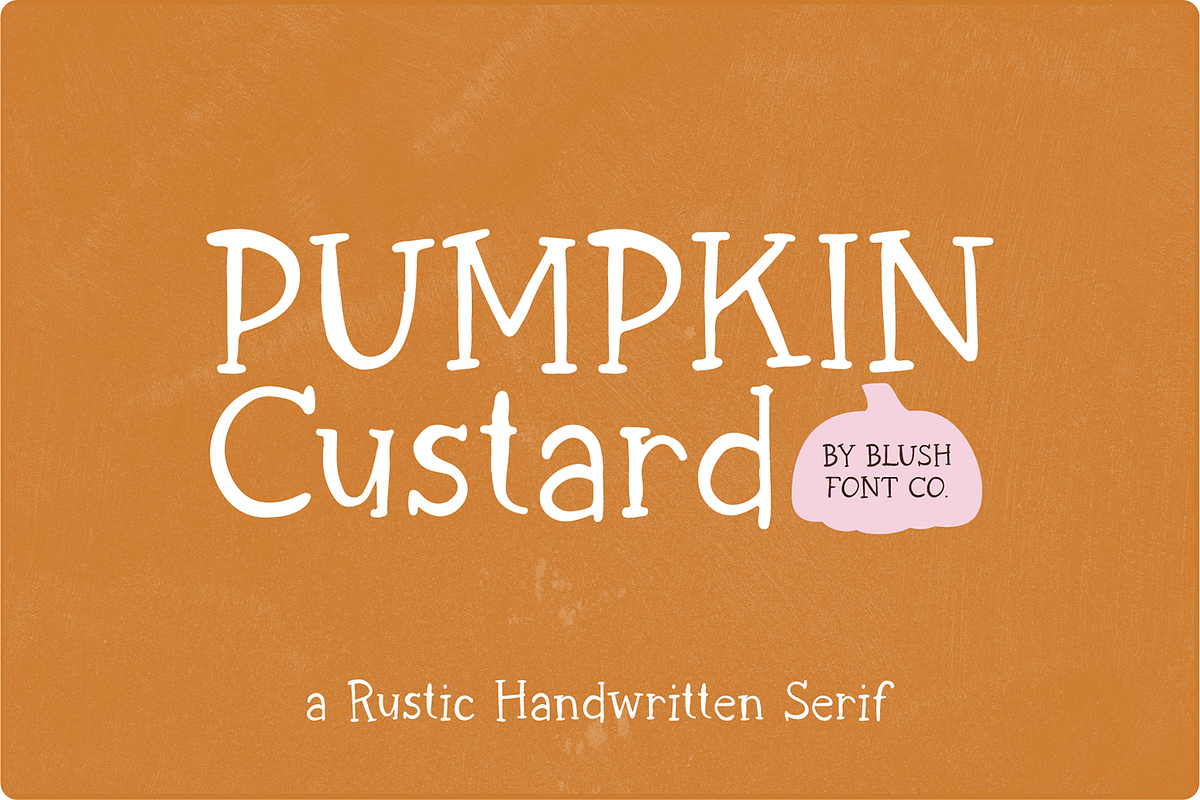
PUMPKIN CUSTARD Autumn Serif Font Free Download is a cozy and charming serif typeface inspired by the warmth and nostalgia of the fall season. With its soft serifs, rounded edges, and subtle vintage flair, this font is perfect for autumn-themed branding, seasonal packaging, Thanksgiving invitations, café menus, and rustic home decor projects.
Designed to evoke the feeling of pumpkin pies, falling leaves, and crisp sweater weather, Pumpkin Custard adds personality and a handcrafted touch to your typography. It’s ideal for creatives looking to bring a sense of comfort and whimsy into their fall designs.
This font includes uppercase and lowercase letters, numerals, punctuation, and multilingual support. It works beautifully in both digital and print formats, especially when used for headers, titles, or styled quotes.